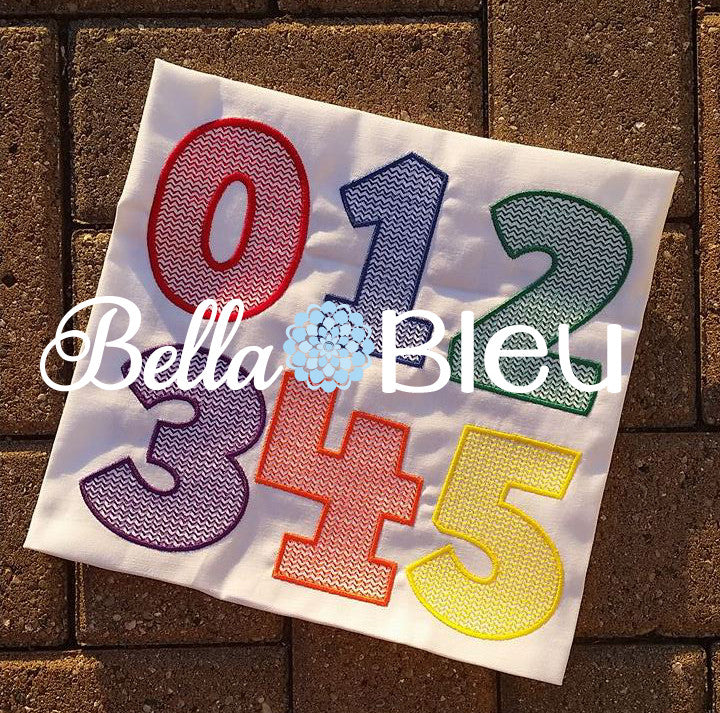
Chevron Font Number Numbers Set Machine Embroidery Design
This listing is for a set of Chevron Numbers from 0-9 machine embroidery design
These are perfect for any project!
Add it to a baseball tee, tote bag or sweatshirt for your favorite team or player!
Perfect for birthday tees!